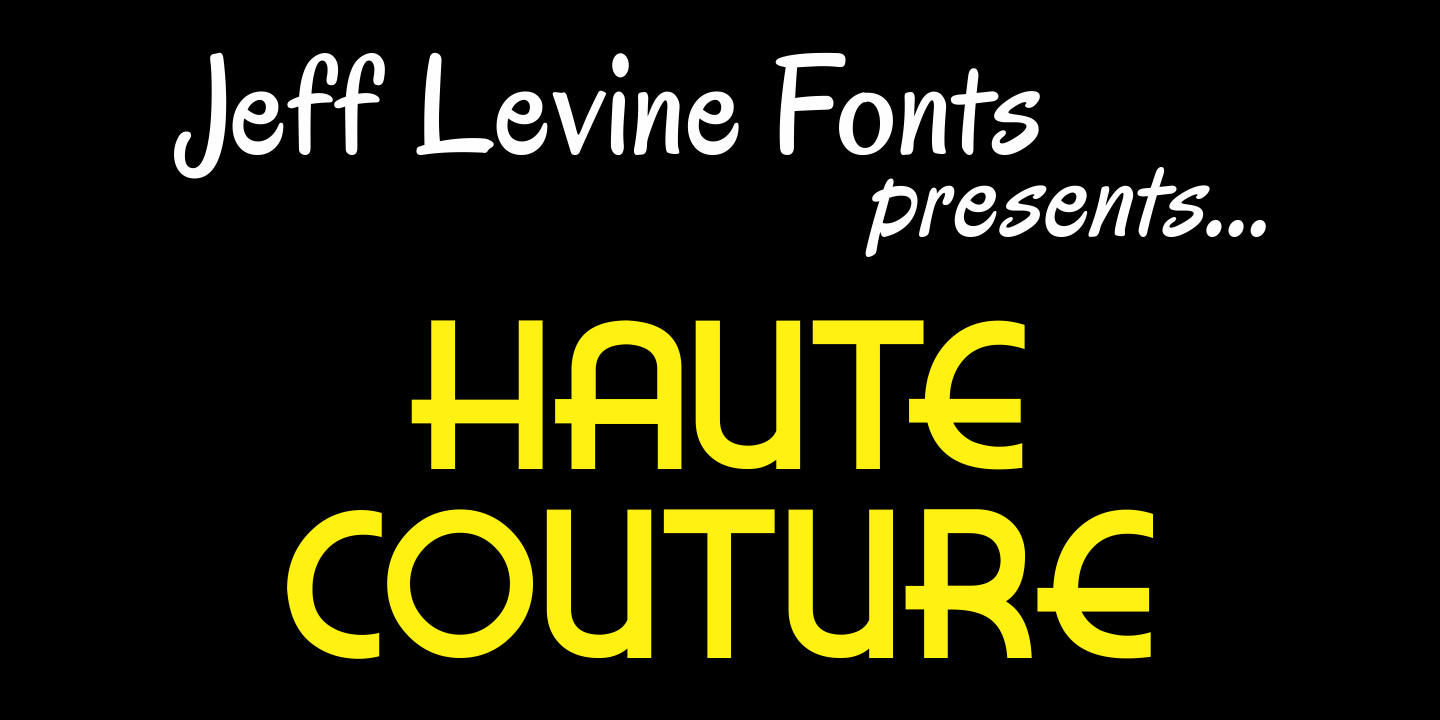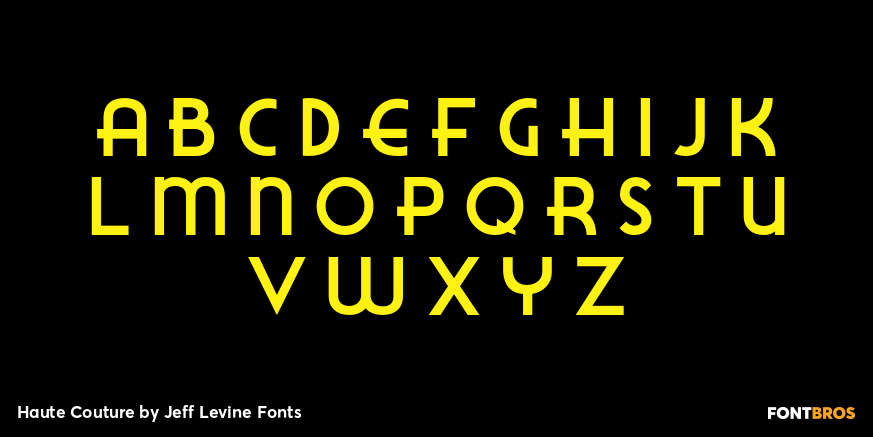
Haute Couture
A style of die-cut cardboard letters and numbers used for signs, displays and show cards was the basis for Haute Couture JNL, an Art-Deco flavored typeface from Jeff Levine. A direct cousin to Signboard JNL, this font shares some similar characteristics in letterforms. Both styles of die-cut lettering were manufactured by a number of companies, and were most popular from the 1940s through the mid-1960s.
Haute Couture by Jeff Levine Fonts